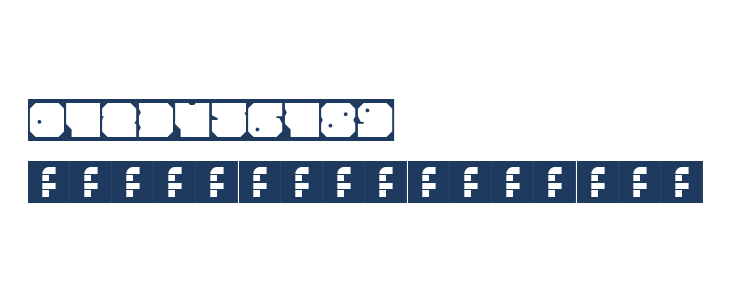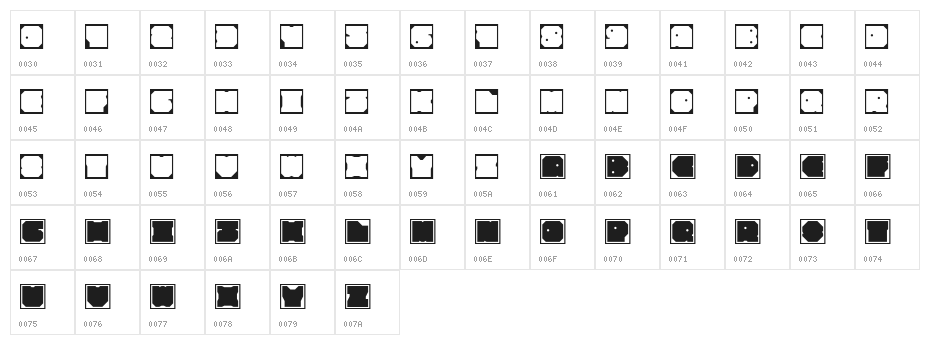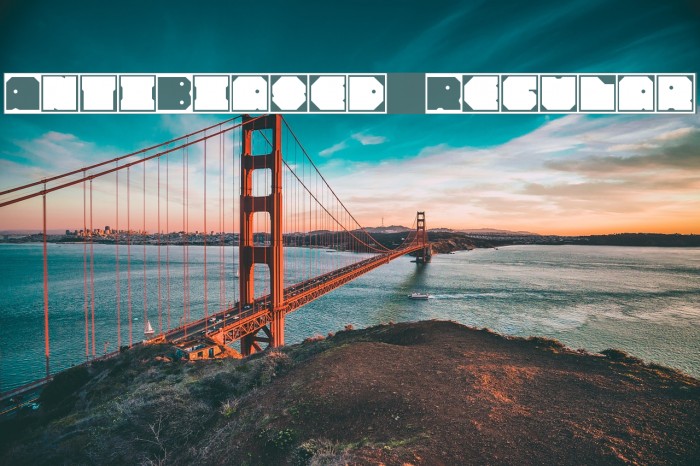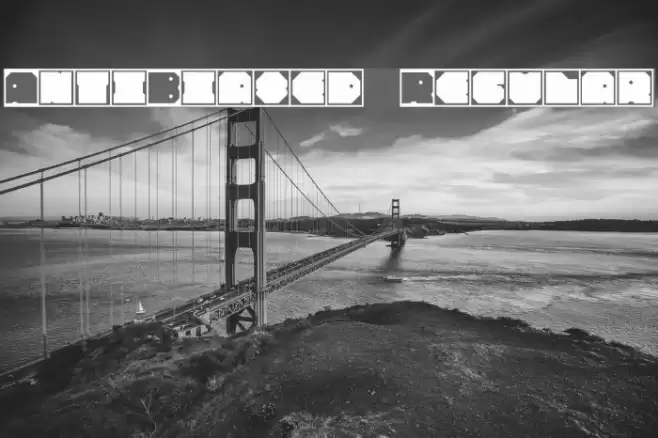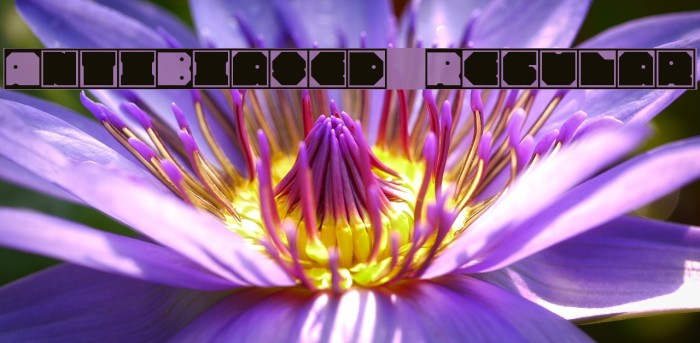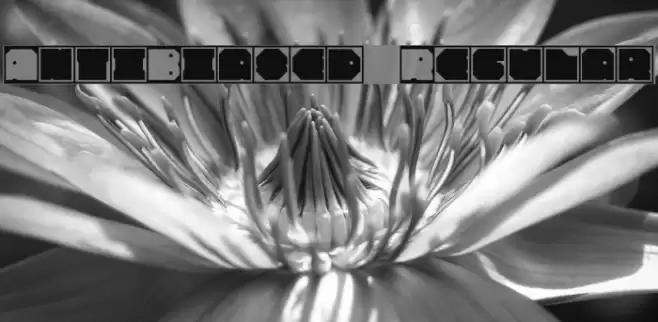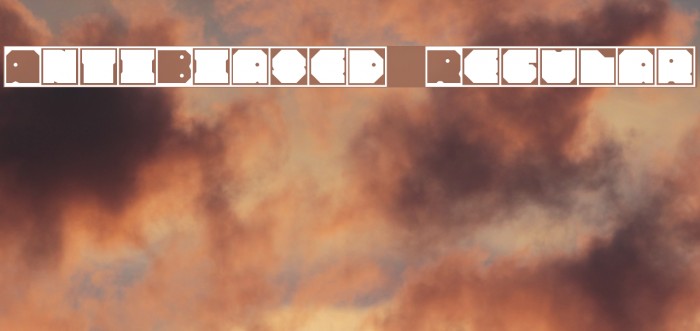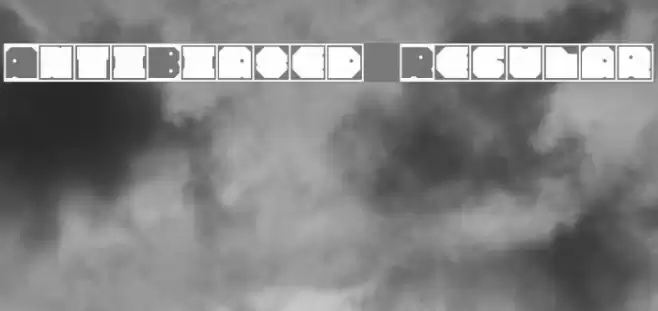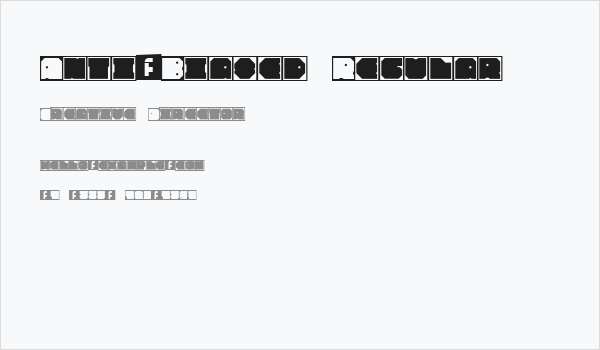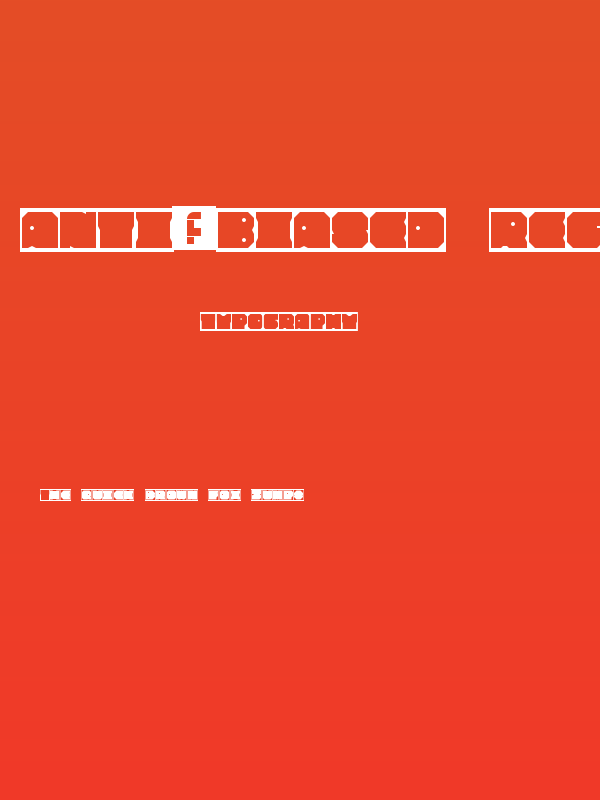
Anti-Biased Regular Font
Anti-Biased Regular Description
This font features a bold and geometric design with a distinct blocky appearance. Each character is enclosed within a square, creating a uniform and structured look. The letters are characterized by sharp angles and straight lines, giving them a modern and edgy feel. The font's unique style is further emphasized by the use of negative space, which adds an element of intrigue and complexity. The overall design is highly stylized, making it suitable for projects that require a strong visual impact.
Proposed ProjectsIdeal for posters, logos, branding, and any design project that requires a striking and modern aesthetic.